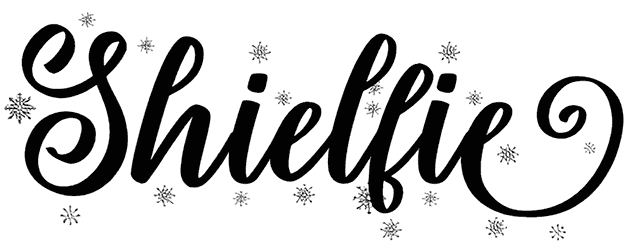
Shielfie Christmas Font
Shielfie Christmas is a script font inspired by winter snow and can add a bit of whimsy and magic to your seasonal projects. In addition, the handwritten nature of this Christmas font has given it character and warmth. This holiday font, ornamented with snowflakes, is a magical and truly stand-out choice for designing invitations or wedding cards, T-shirts, and tattoos.